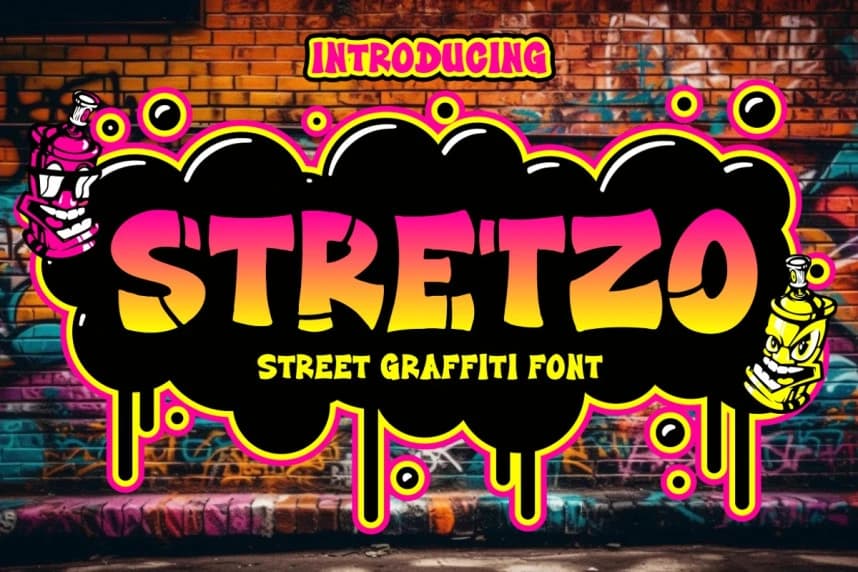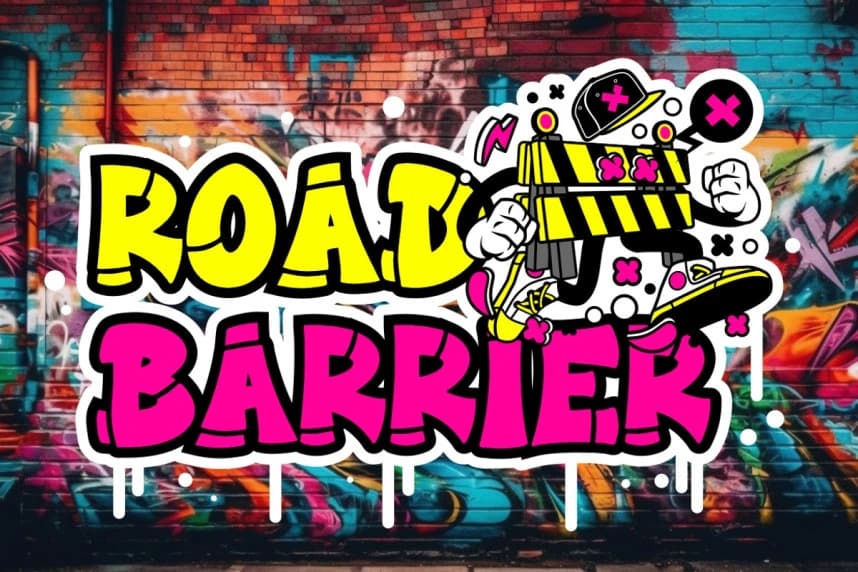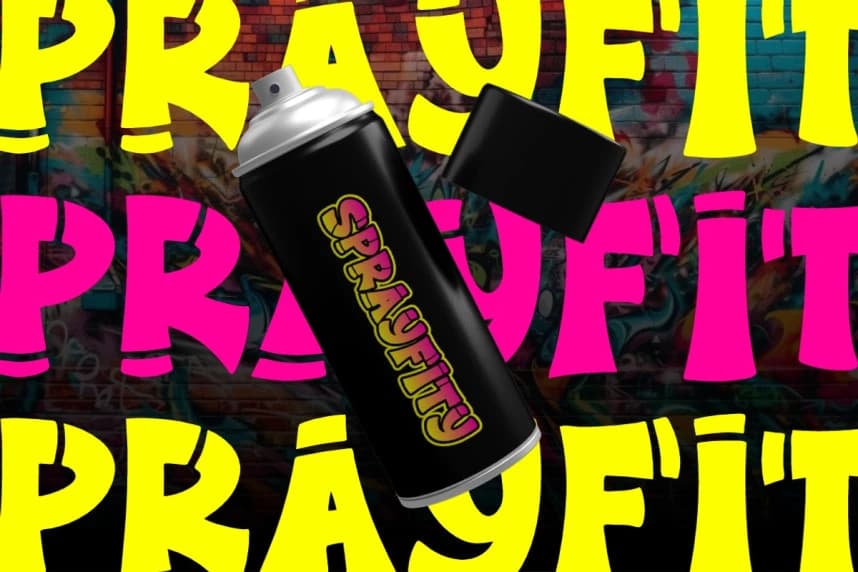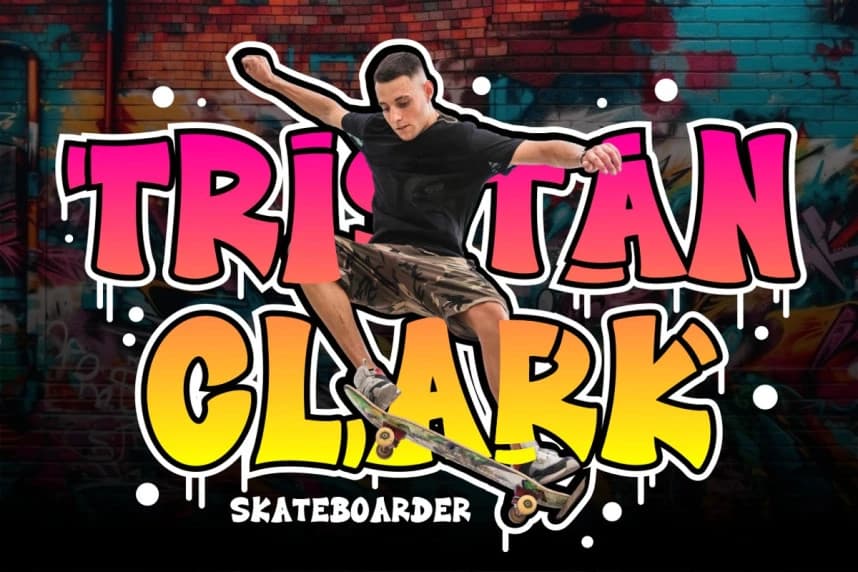
Stretzo Graffiti Font
Stretzo Graffiti Font is a bold and energetic typeface that captures the true essence of street culture. With thick strokes, curved edges, and playful cuts, this font reflects the raw character of spray-painted graffiti found on urban walls.
Stretzo Graffiti